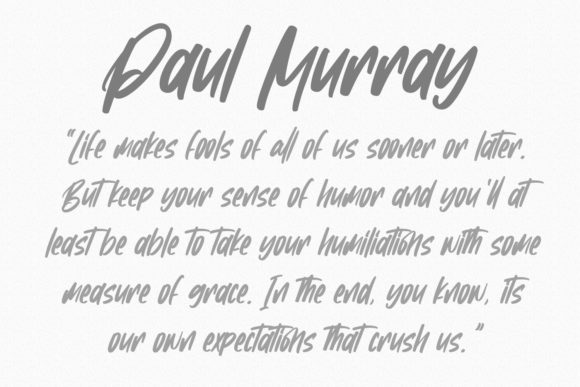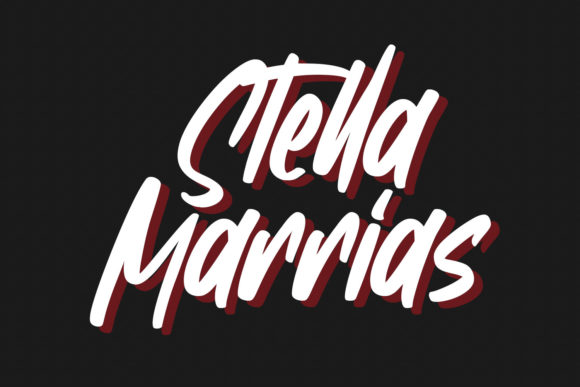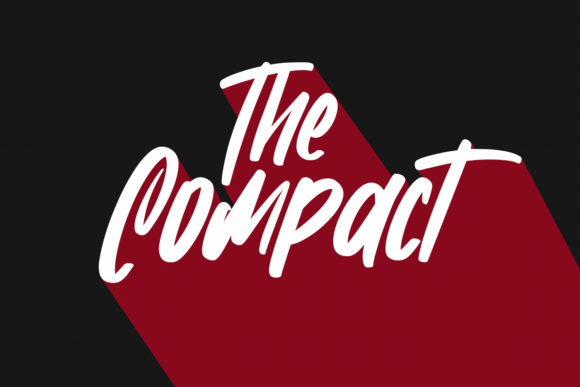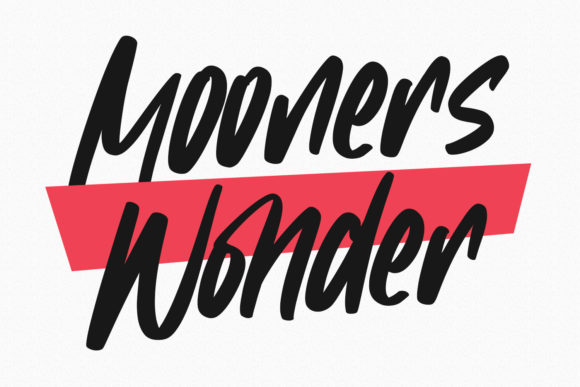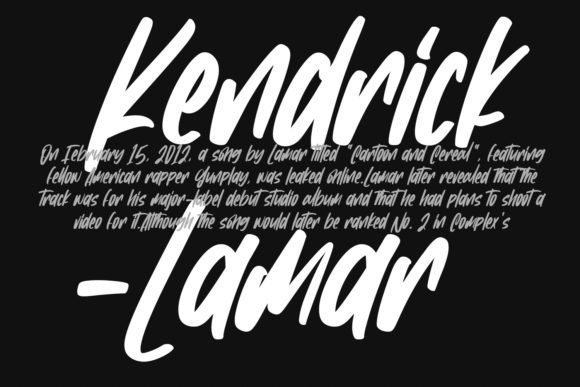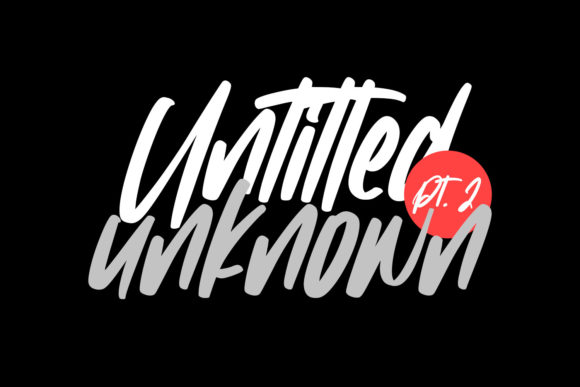
Introduction to Hookypilots Font
You’re working on a creative project, pouring your heart and soul into every detail. But something’s missing – a spark that brings it all to life. That’s where Hookypilots Font comes in. This expressive, slanted handwritten font is the perfect addition to any design, adding a touch of personality and whimsy to your work.
With bold strokes, fun characters, ligatures, and alternates, Hookypilots Font is a high-quality design resource that’s sure to elevate your creative projects. Whether you’re working on a graphic design, typography project, or even a social media graphic, this font is a must-have. And the best part? It’s available for free download, making it a valuable resource for designers of all levels.
Key Features of Hookypilots Font
- High-quality design resource ideal for creative projects, including logos, graphics, and branding materials.
- Features a unique and stylish design, perfect for adding a touch of personality to your creative project.
- Perfect for designers, artists, and creatives looking for a free, high-quality font to elevate their design projects.
Honest Review: Hookypilots Font
As a designer, I’m always on the lookout for high-quality design resources to elevate my creative projects. I recently stumbled upon the Hookypilots Font, and I’m excited to share my honest review.
- ✨ High-quality font design with a unique aesthetic.
- ✨ Supports transparent backgrounds, making it perfect for creative projects with layered elements.
- ⚠️ Limited font styles and weights, which may not be ideal for complex typography projects.
- ⚠️ May require additional styling to achieve the desired look, depending on the design context.
Overall, I’m impressed with the Hookypilops Font’s design and versatility. While it may not be the most extensive font library, its unique style and free download make it a valuable addition to any designer’s toolkit. With a little creativity and experimentation, I believe the Hookypilops Font can add a lot of visual interest to your next creative project.
Tips for Getting the Most Out of Hookypilots Font
Experiment with different font sizes and styles to create a visually appealing design.
The Hookypilots Font is ideal for:
Graphic design projects
Social media graphics
Presentations and documents
Branding and marketing materials